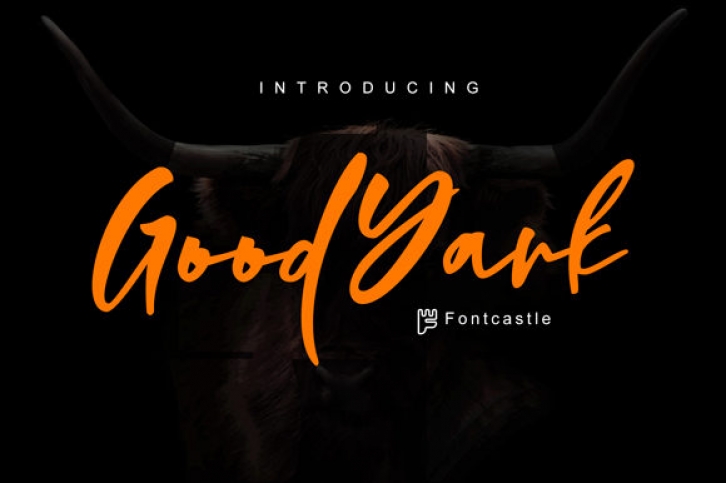
Good Yark is a flowing and unique handwritten font. Fall in love with its incredibly distinct and timeless style and use it to create spectacular designs!